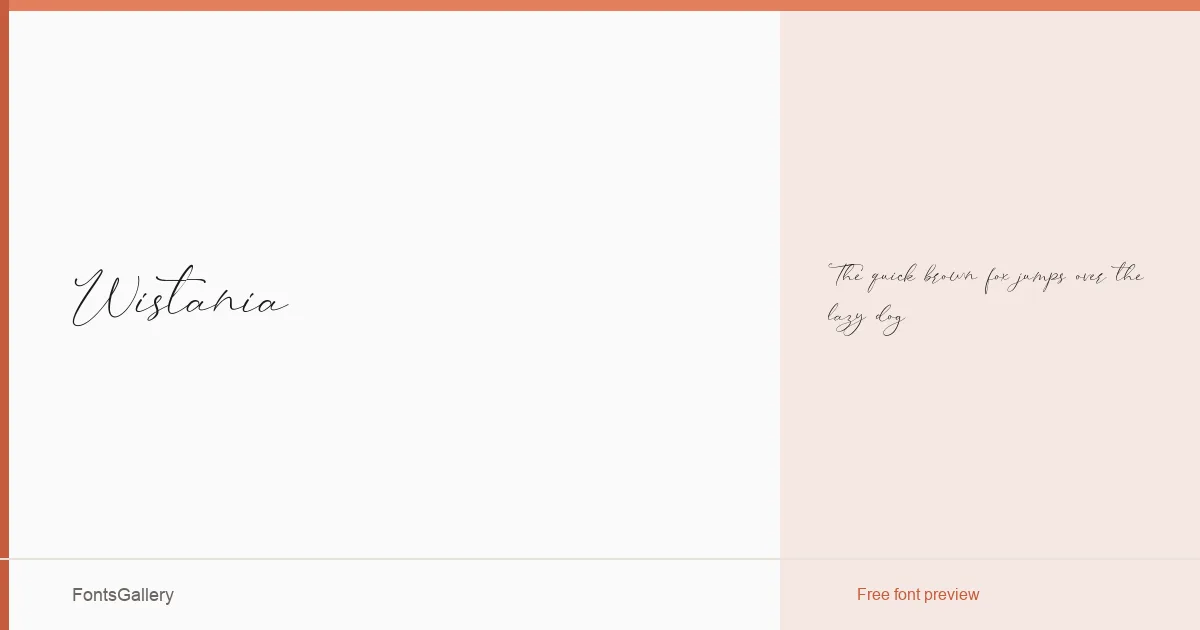
About Wistania Font
Wistania is an elegant script typeface crafted by designer and foundry Ahmad Muslimin. Rooted in a classic sensibility, it carries a romantic and luxurious character that makes it instantly distinctive. Its flowing letterforms evoke refinement and grace, ideal for projects that demand a touch of timeless sophistication.
Wistania's script styling features graceful, flowing strokes that embody elegance and romance in every curve. The letterforms draw on classic calligraphic traditions, lending a sense of luxury and warmth that feels both personal and elevated. This combination of fluid movement and refined structure gives Wistania a distinguished presence on the page.
Wistania is perfectly suited for wedding stationery, invitation cards, greeting cards, and upscale branding or logo design where an air of romance and luxury is desired. Its expressive character also makes it a compelling choice for lifestyle and boutique branding projects. For a balanced and harmonious layout, consider pairing Wistania with Aresink for an all-script composition, or with Helvetica for a clean, modern contrast.